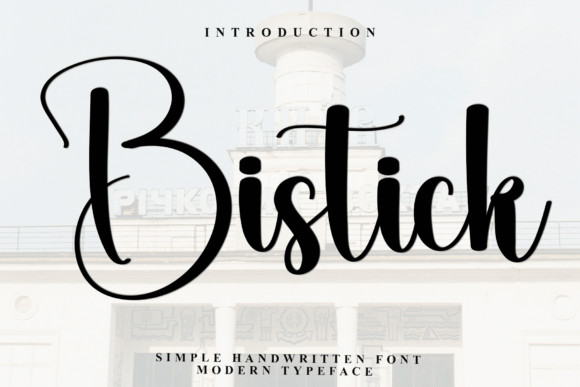
The Perfect Script: Unlocking the Magic of Bistick Font
Have you ever stared at a blank page, pen in hand, waiting for that perfect phrase to flow onto the paper? That’s where the magic happens – in the creative spark that ignites a new idea. For designers, this moment is often the starting point for something truly special.
Enter the Bistick Font, a lovely and timeless handwritten font that brings a touch of elegance to any design. Whether you’re crafting eye-catching logos, branding, or quotes, this versatile font is sure to make your work shine. With its unique and beautiful touch, every letter comes alive, infusing your design with a sense of personality and charm.
Bistick Font Key Features
- Unique Characteristics: Bistick Font features a unique blend of bold and elegant strokes, making it suitable for use in headings, titles, and other display typography.
- Font Style: Bistick Font comes in both regular and bold weights, allowing designers to create contrast and visual interest in their designs.
Bistick Font Review
Overall, I found the Bistick Font to be a visually appealing and unique choice for designers looking to add some personality to their projects. Here are some of its strengths:
- ✨ Versatile: The Bistick Font can be used in a variety of contexts, from headlines and titles to body text and even logos.
- ✨ Distinctive: Its distinctive, hand-drawn aesthetic sets it apart from more common sans-serif fonts.
- ✨ Easy to read: Despite its quirky appearance, the font is surprisingly easy to read, making it a great choice for longer blocks of text.
However, I did encounter a few limitations:
- ⚠️ Limited font sizes: While the font looks great at larger sizes, it can become distorted or hard to read at smaller sizes.
- ⚠️ Limited language support: The font may not be optimized for non-Latin languages, which could limit its usability in certain projects.
Overall, I think the Bistick Font is a great choice for designers who want to add some visual interest to their projects. However, it may not be the best choice for projects that require precise font control or extensive language support.
To get the most out of the Bistick font, use it sparingly and in strategic places to add visual interest to your design. Pair it with bold fonts or other sans-serif fonts to create a balanced look.
The Bistick font is ideal for use in logos, headings, and titles. It’s also great for creating a modern and sleek look in business cards, brochures, and other marketing materials.